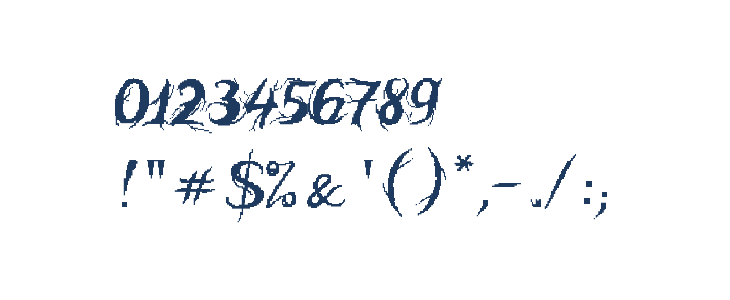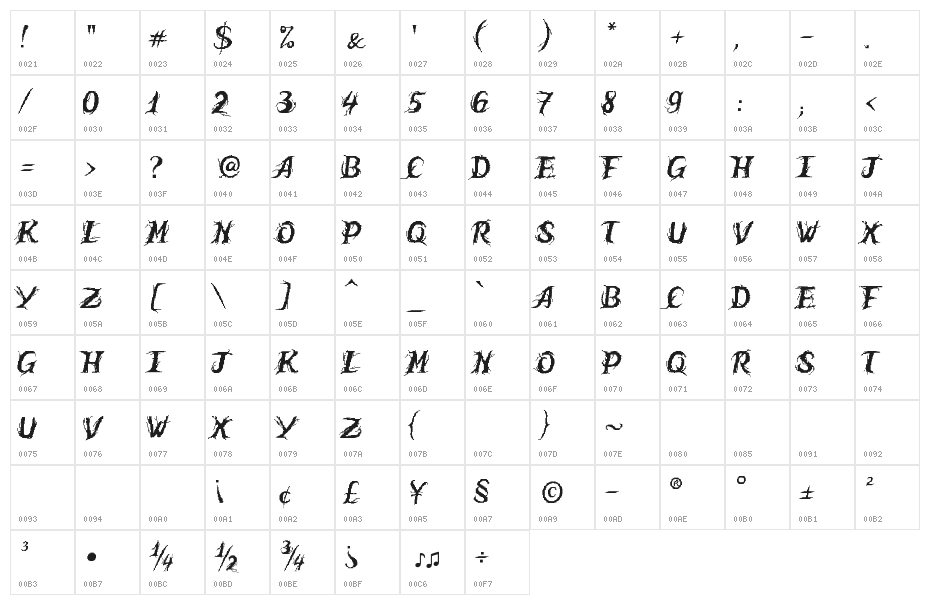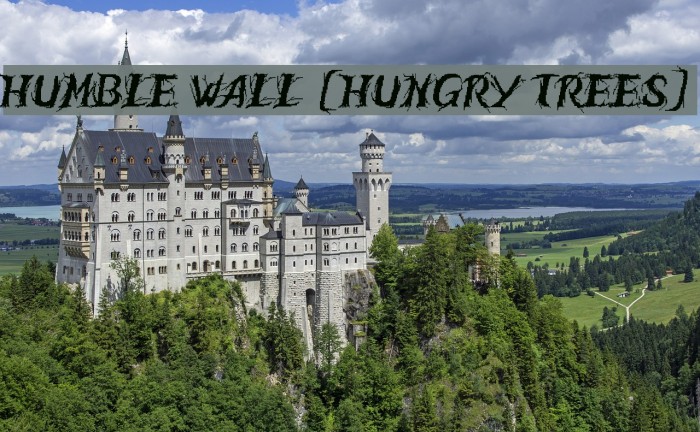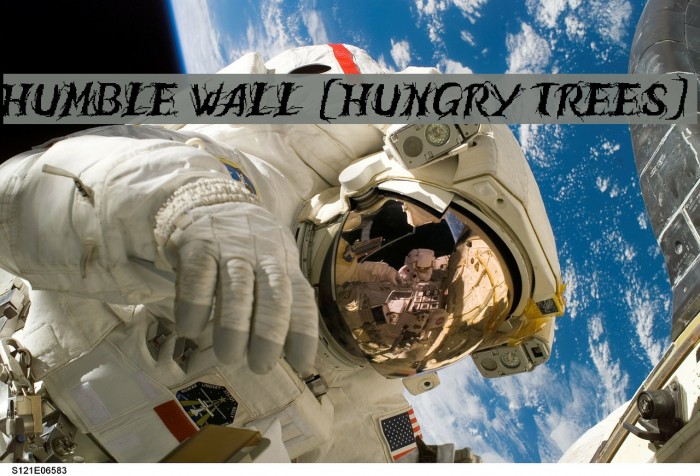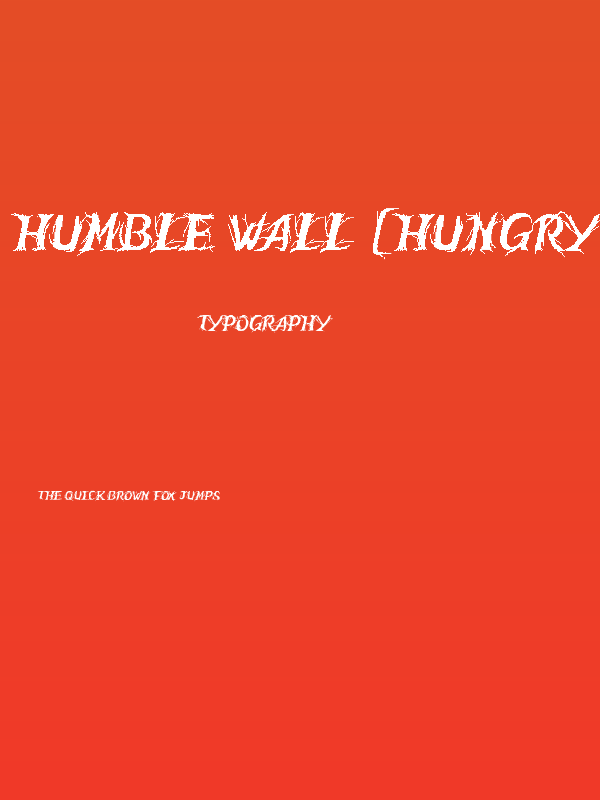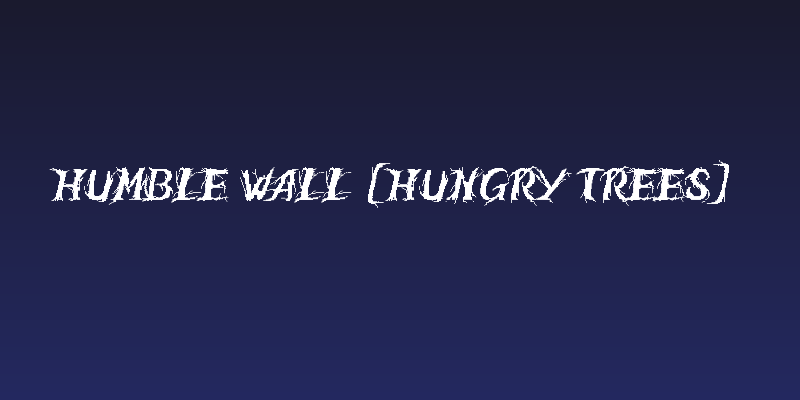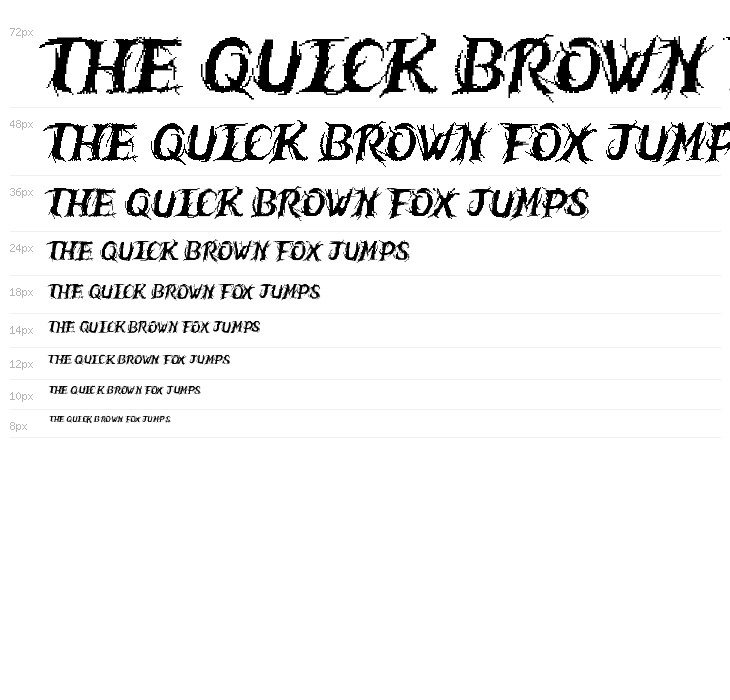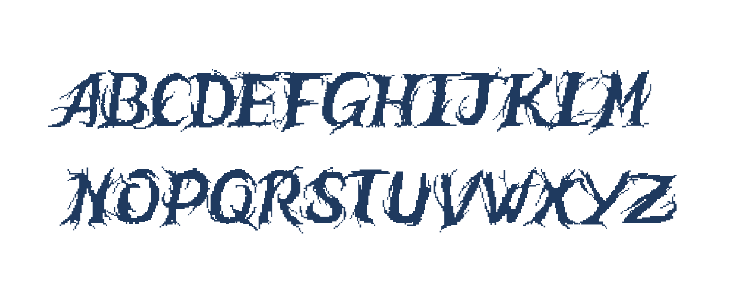
Humble Wall [Hungry Trees] Font
Humble Wall [Hungry Trees] Description
This font features a dynamic and edgy style with sharp, jagged edges that give it a wild and untamed appearance. The characters are bold and have a distressed look, reminiscent of natural elements like branches or thorns. The uppercase and lowercase letters maintain a consistent design, with each character exhibiting a unique flair. The numbers and special characters follow the same rugged aesthetic, making the font suitable for projects that require a bold statement. Its distinctive style captures attention and conveys a sense of raw energy.
Proposed ProjectsIdeal for album covers, horror movie posters, extreme sports branding, or any project needing a bold, edgy look.